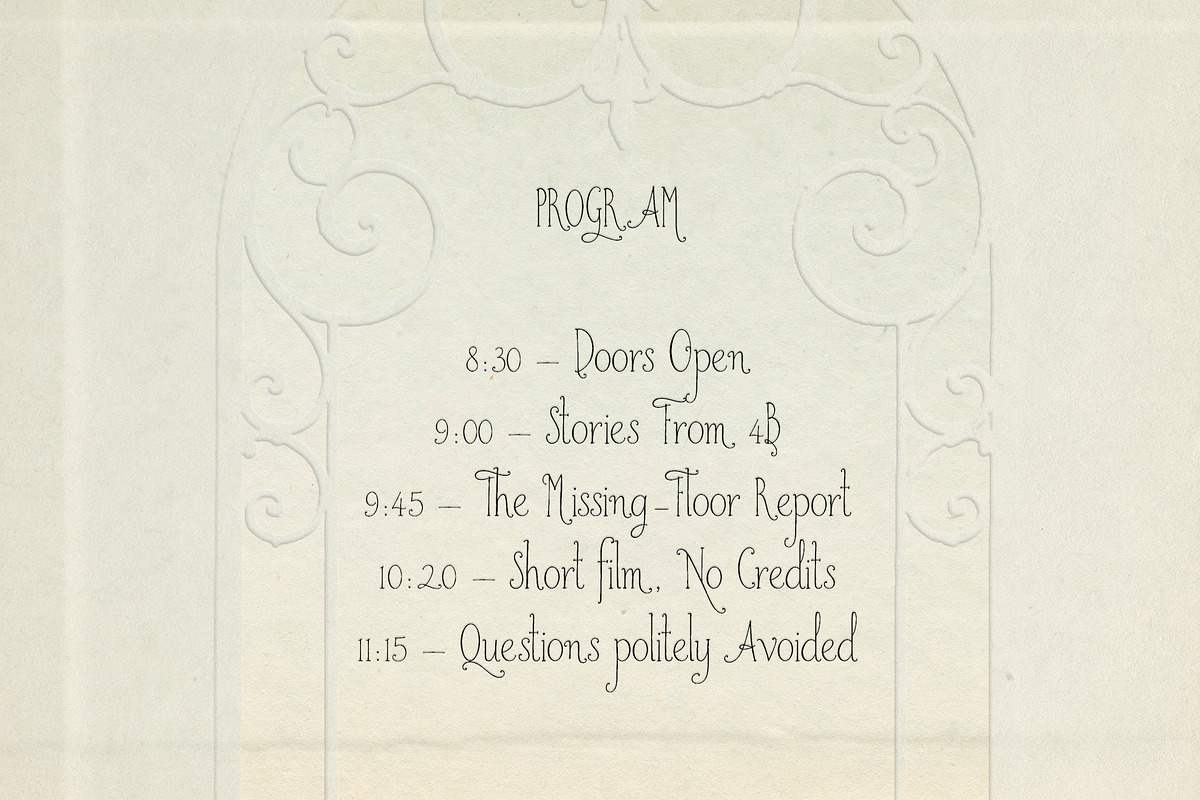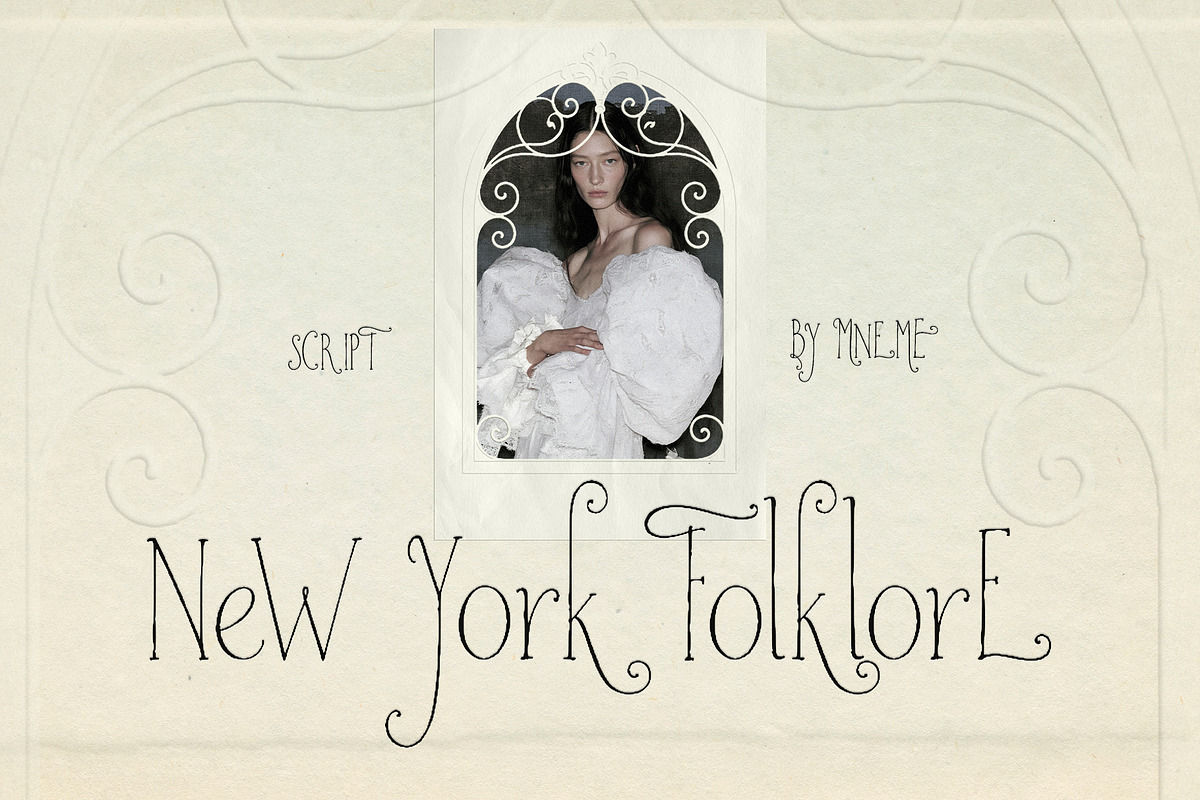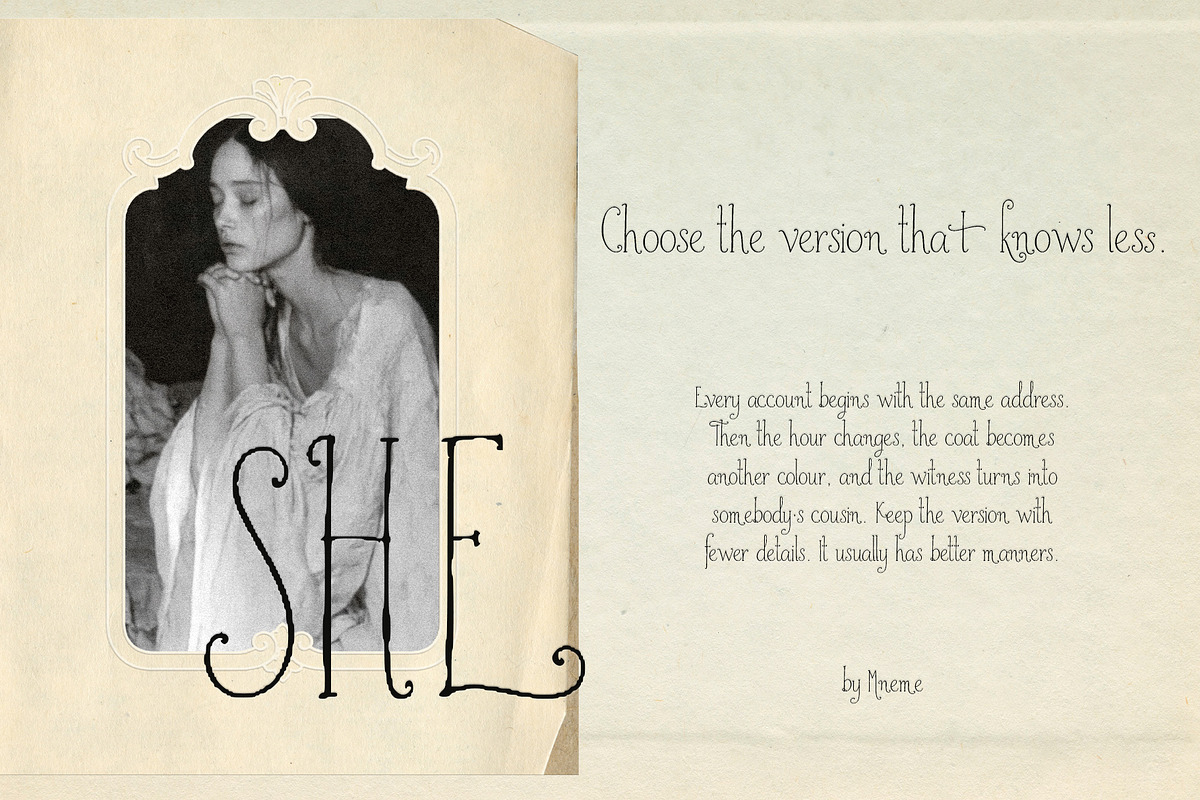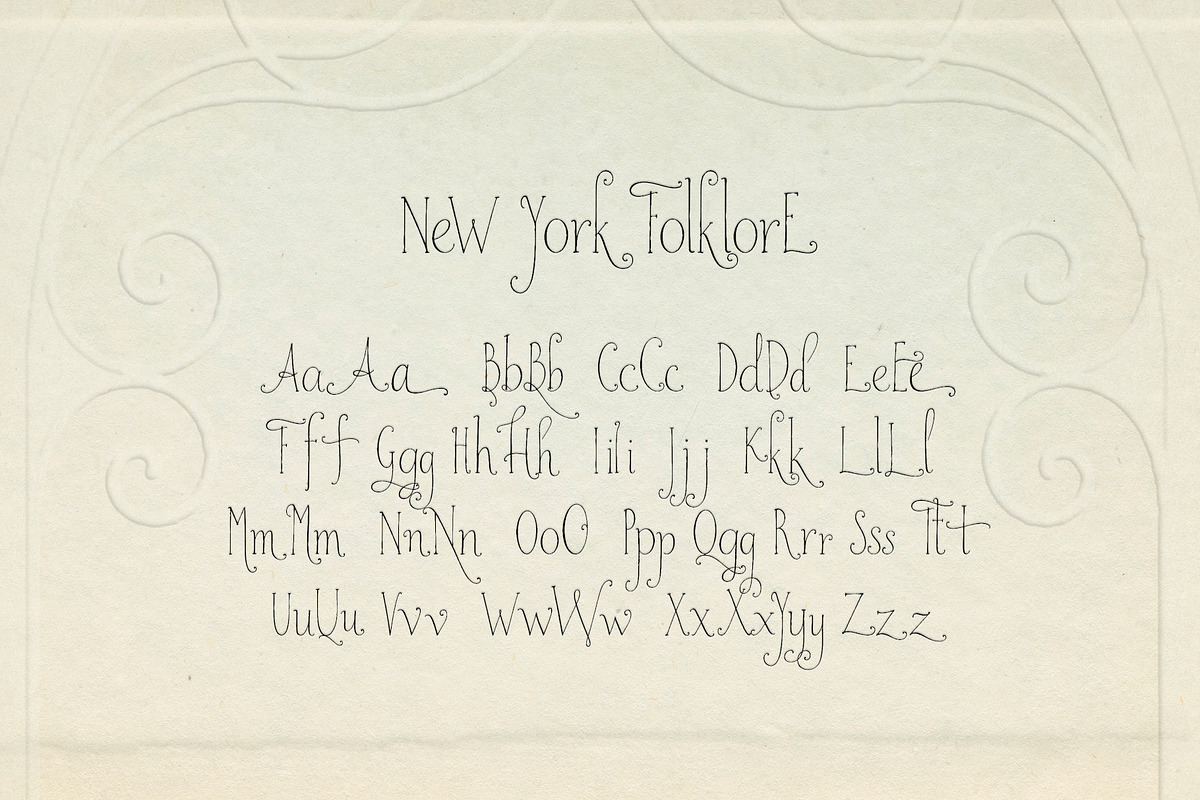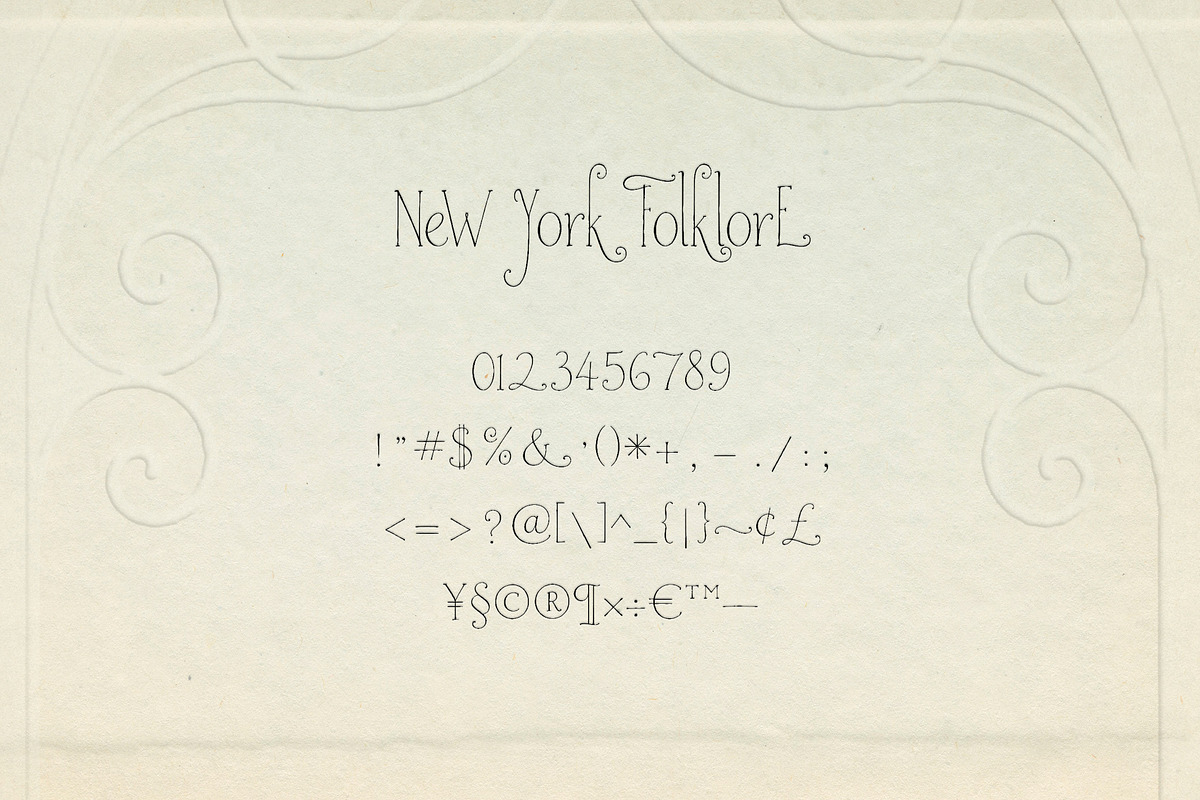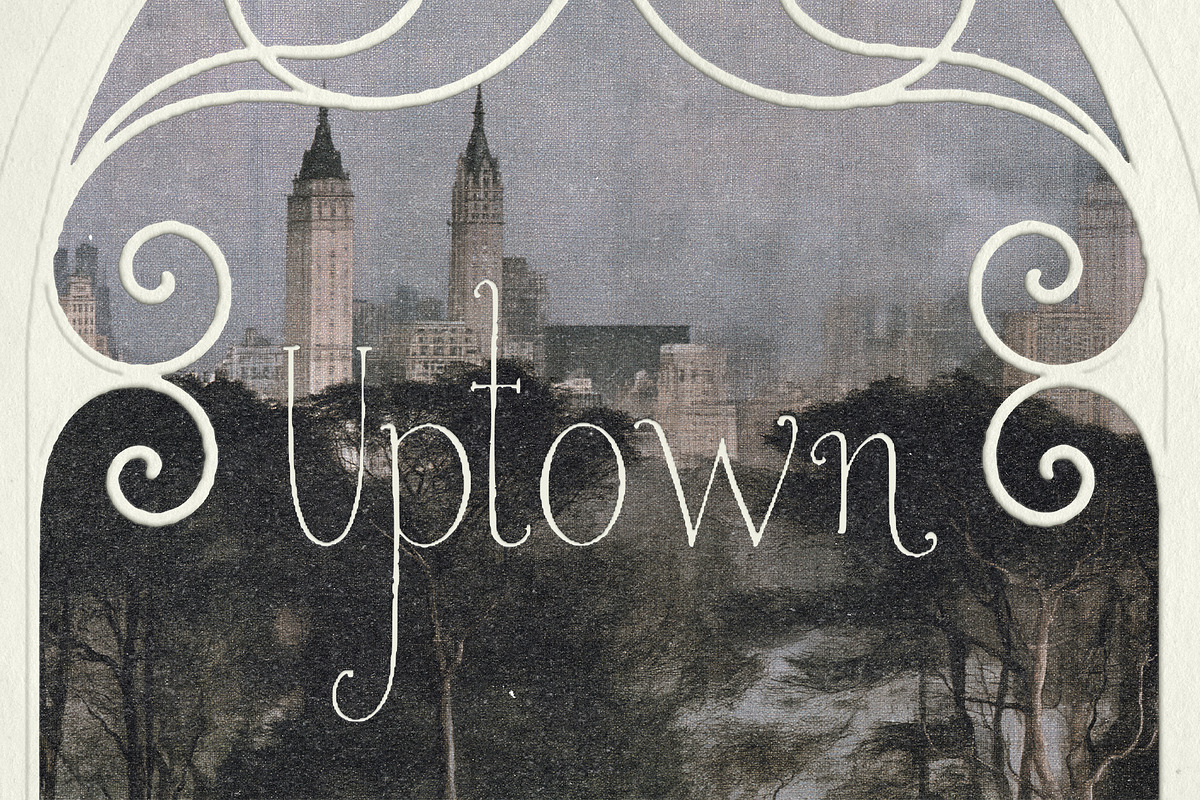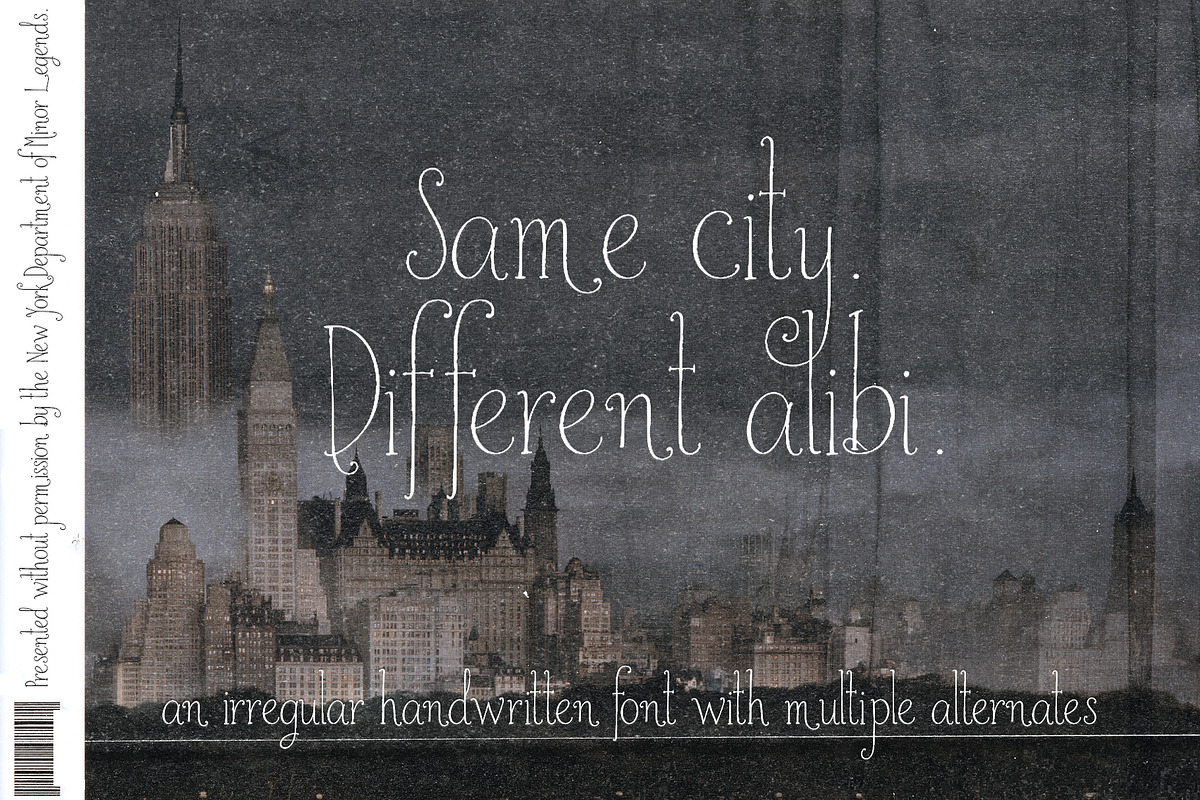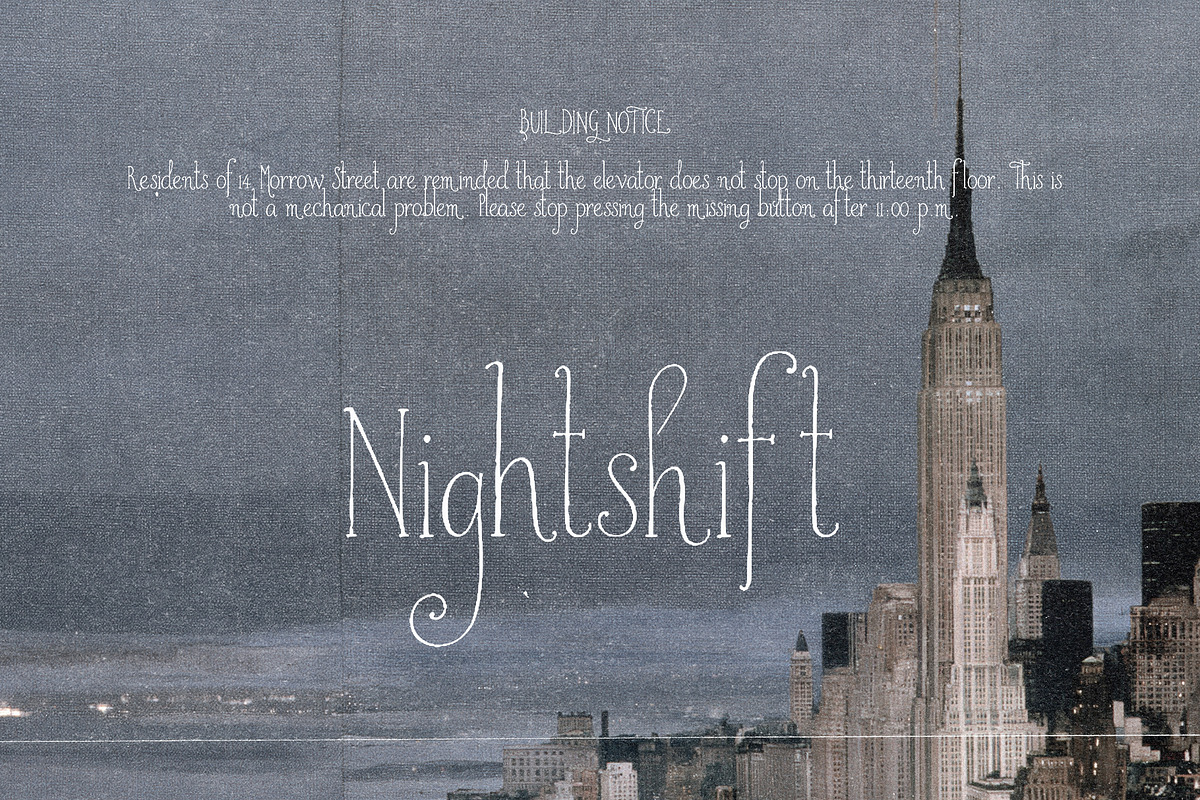
New York Folklore Script Font
New York Folklore is a tall, irregular handwritten script with narrow proportions, delicate curls and an extensive set of alternate letterforms.
The font combines editorial elegance with a slightly off-kilter rhythm. Its varied capitals and alternative lowercase characters allow repeated letters and words to look less uniform and more naturally composed.
Use New York Folklore for fashion editorials, branding, posters, packaging, book covers, invitations, magazine layouts, handwritten captions and social graphics.
New York Folklore Regular
Uppercase A–Z
Lowercase a–z
Multiple uppercase alternatives
Numbers, punctuation and symbols